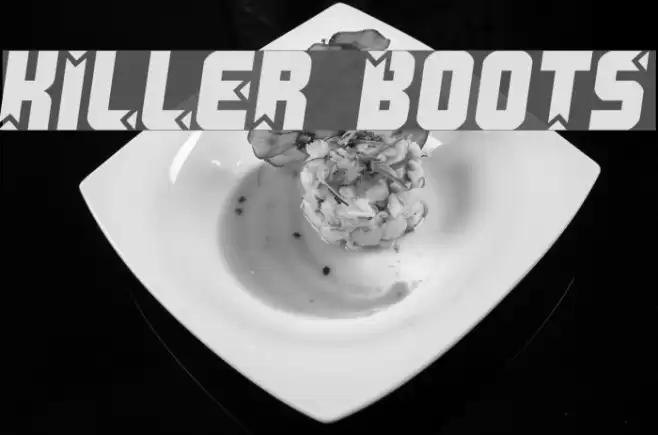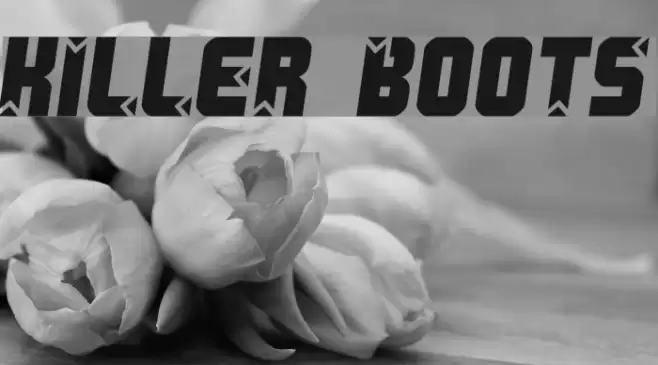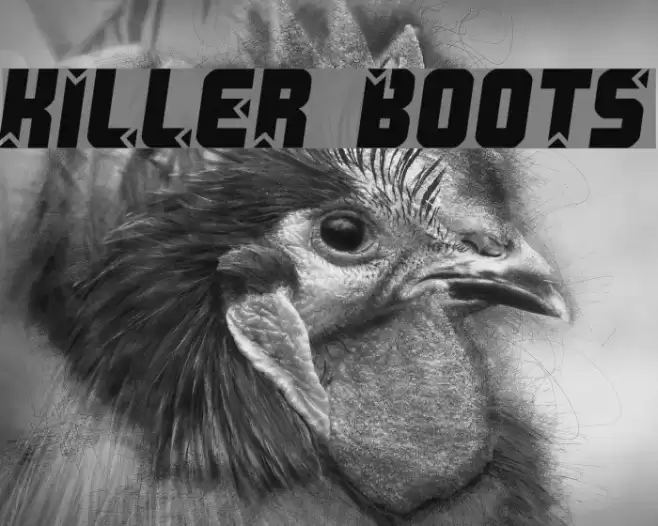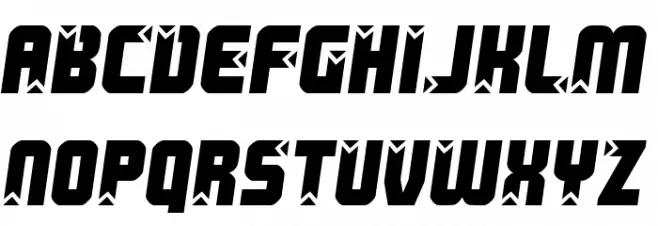
Killer boots Font
Killer boots Description
This font features a bold, dynamic style with sharp, angular cuts and geometric shapes integrated into each character. The design is highly distinctive, with a futuristic and edgy aesthetic that makes it stand out. The uppercase and lowercase letters maintain a consistent style, with unique embellishments that add a sense of movement and energy. The numbers and special characters follow the same design principles, ensuring a cohesive look across all elements. This font is perfect for projects that require a strong visual impact and a modern, unconventional feel.
A bold, angular font with a futuristic and edgy design from Military fonts.
- Proposed Projects: Ideal for branding, posters, album covers, and video game graphics.